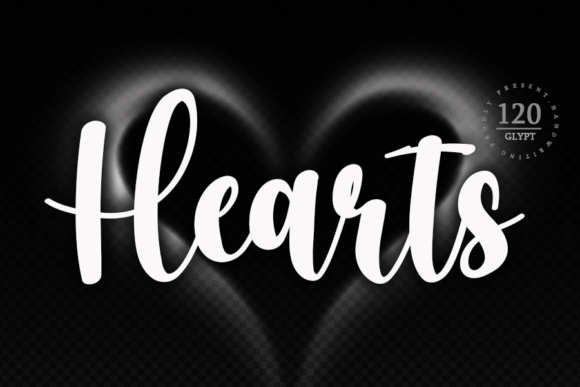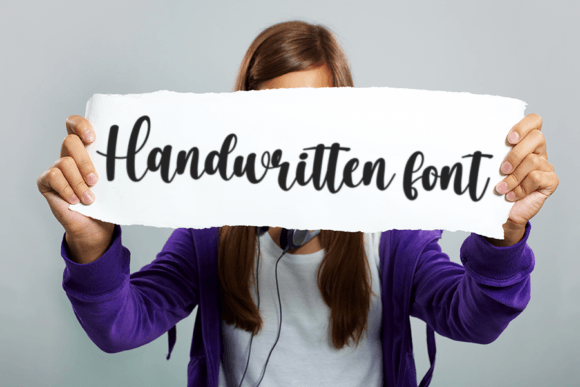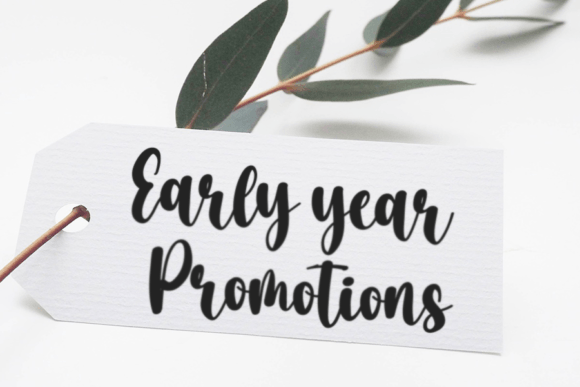
About Hearts
hearts is a well-balanced handwritten font with a contemporary atmosphere and impeccable form, inspired by a timeless classic calligraphy. It will look outstanding in a wide range of contexts.